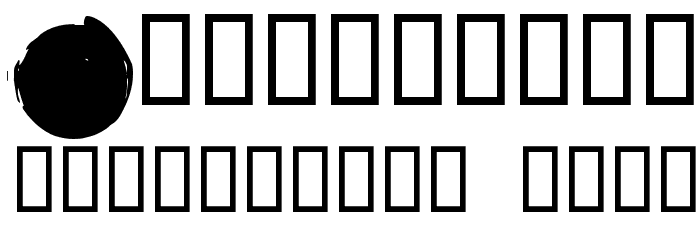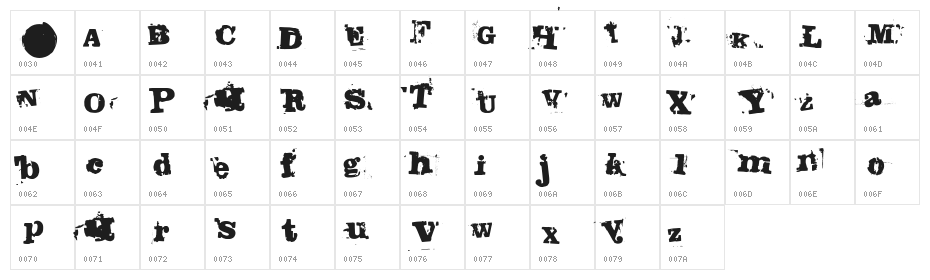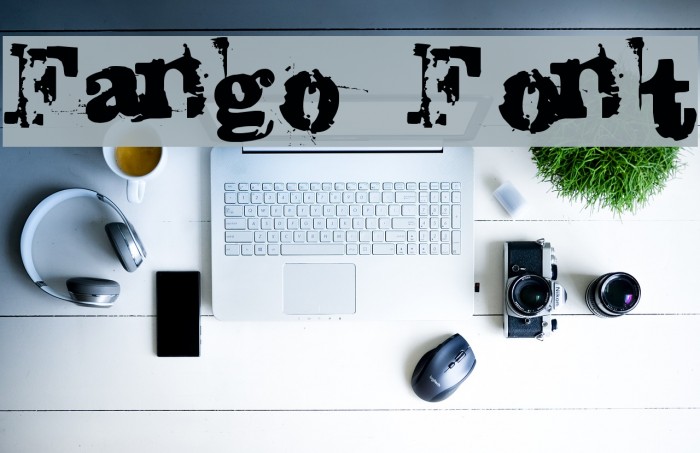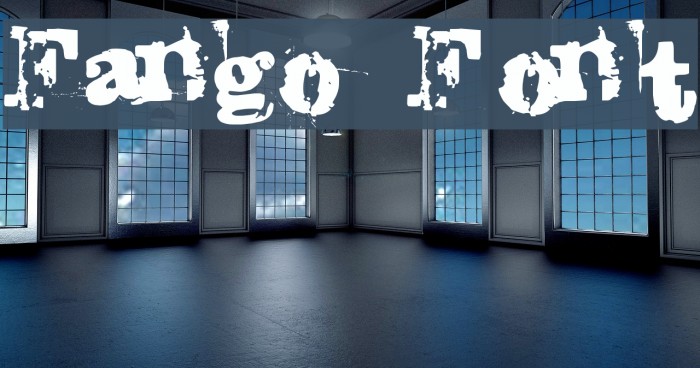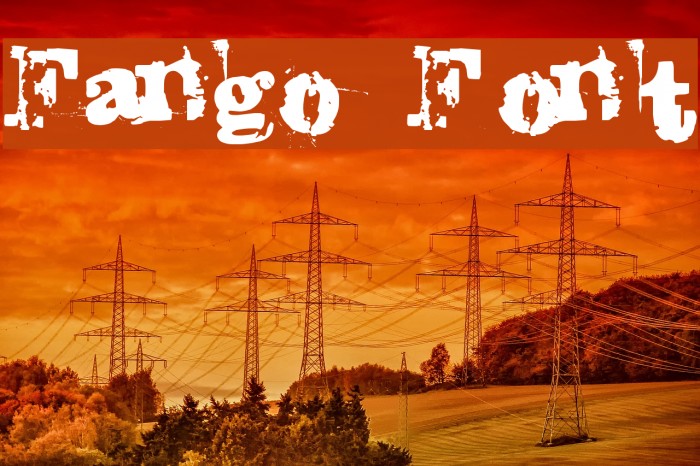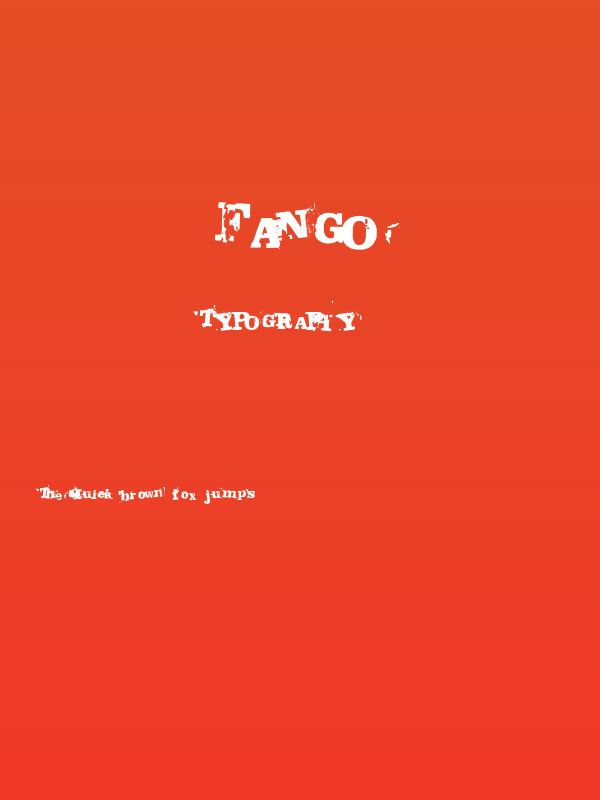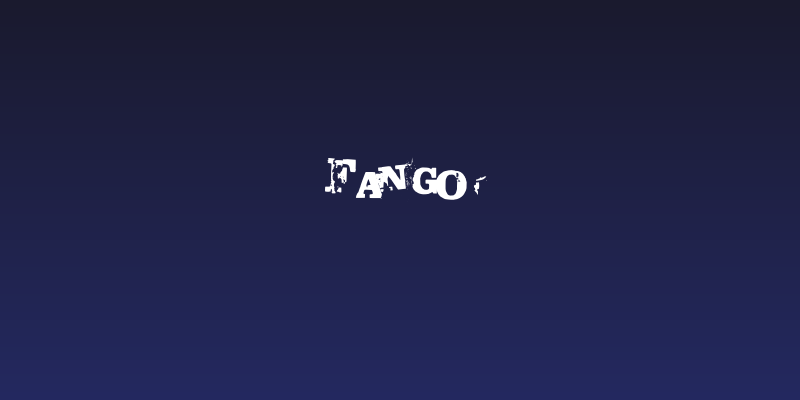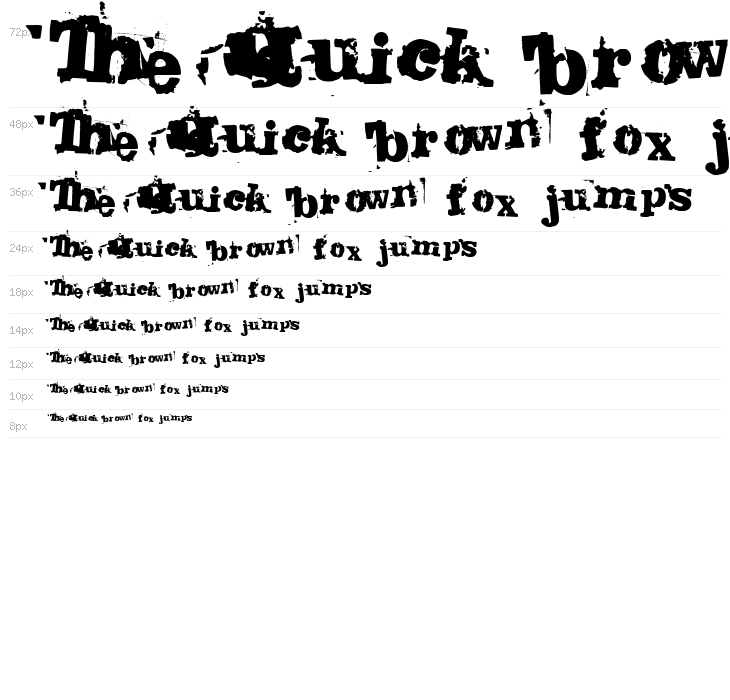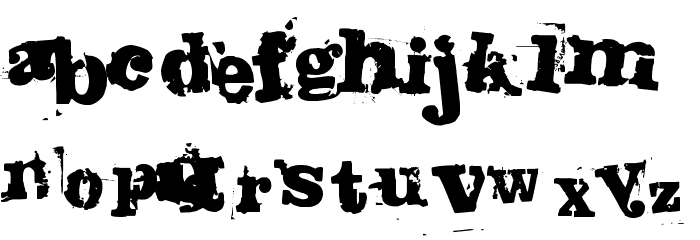
Fango Font
Fango Description
This font features a distressed, grunge style with a bold and impactful appearance. The characters are heavily textured, giving them a worn and rugged look. The uppercase and lowercase letters maintain a consistent style, with irregular edges and a slightly chaotic feel. This font is designed to stand out, making it ideal for projects that require a strong visual impact. The numbers and special characters follow the same distressed aesthetic, ensuring a cohesive look across all text elements.
| Overall Style | Grunge, Distressed |
| Proposed Projects | Ideal for album covers, posters, and edgy branding projects. |